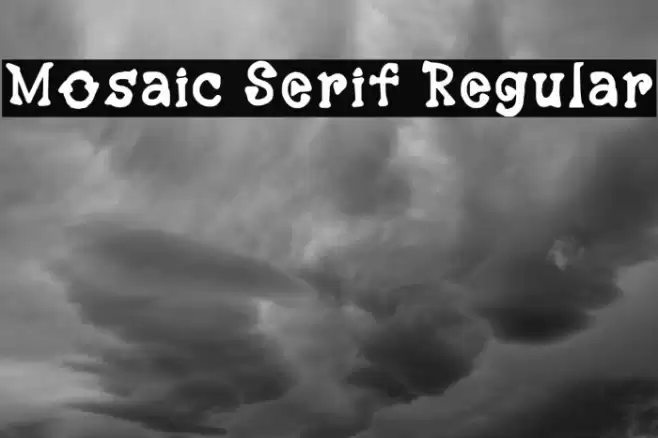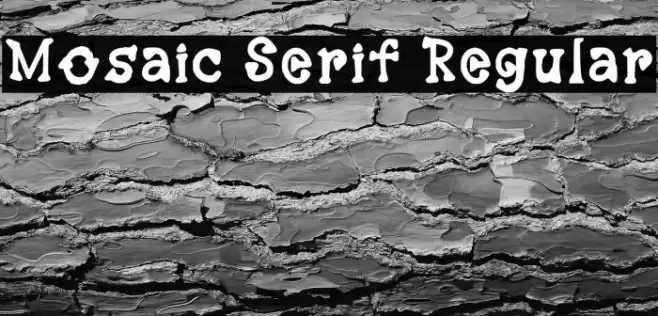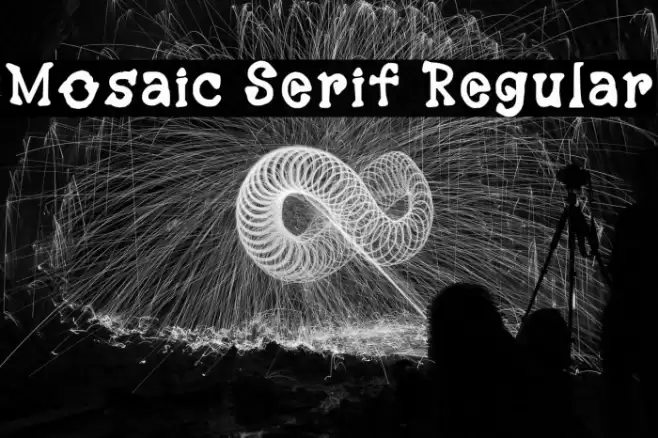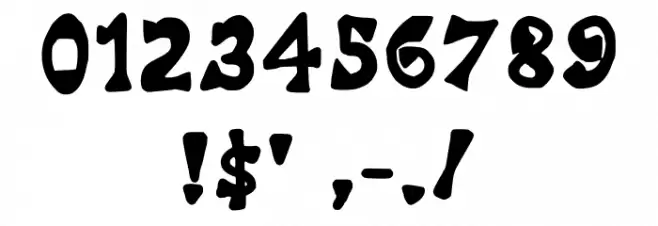
Mosaic Serif Regular Font
Mosaic Serif Regular Description
This font features a playful and artistic serif style with a hand-crafted appearance. Each character displays unique, irregular shapes, giving it a whimsical and organic feel. The serifs are prominent yet uneven, adding to the font's charm and distinctiveness. The strokes vary in thickness, providing a dynamic and textured look. This font is well-suited for creative projects that require a touch of personality and flair. Its bold presence makes it ideal for eye-catching designs.
A playful serif font with irregular, hand-crafted characters and dynamic strokes from Regular fonts.
- Proposed Projects: Ideal for children's books, artistic posters, branding for creative businesses, and any project needing a whimsical touch.